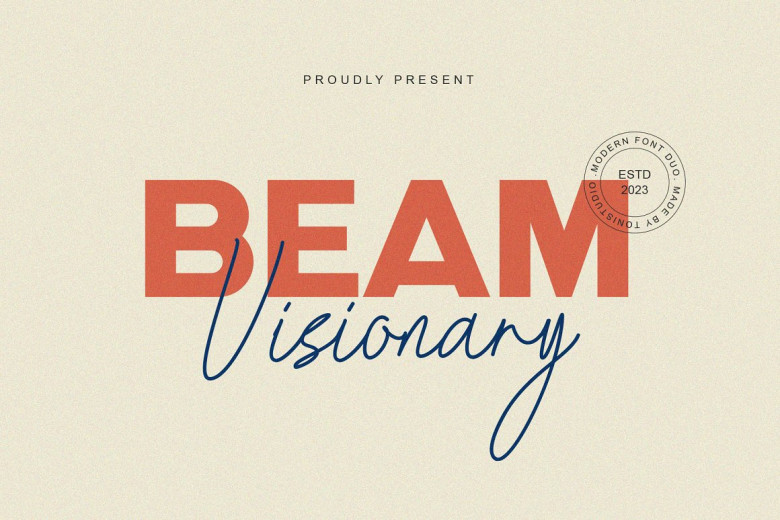
Beam Visionary Font
Beam Visionary is captivating combination of bold typography, sans serif fonts and signature script makes an eye-catching combination that is ideal for logos, wedding invitations and blog posts.!!
Beam Visionary Font Duo